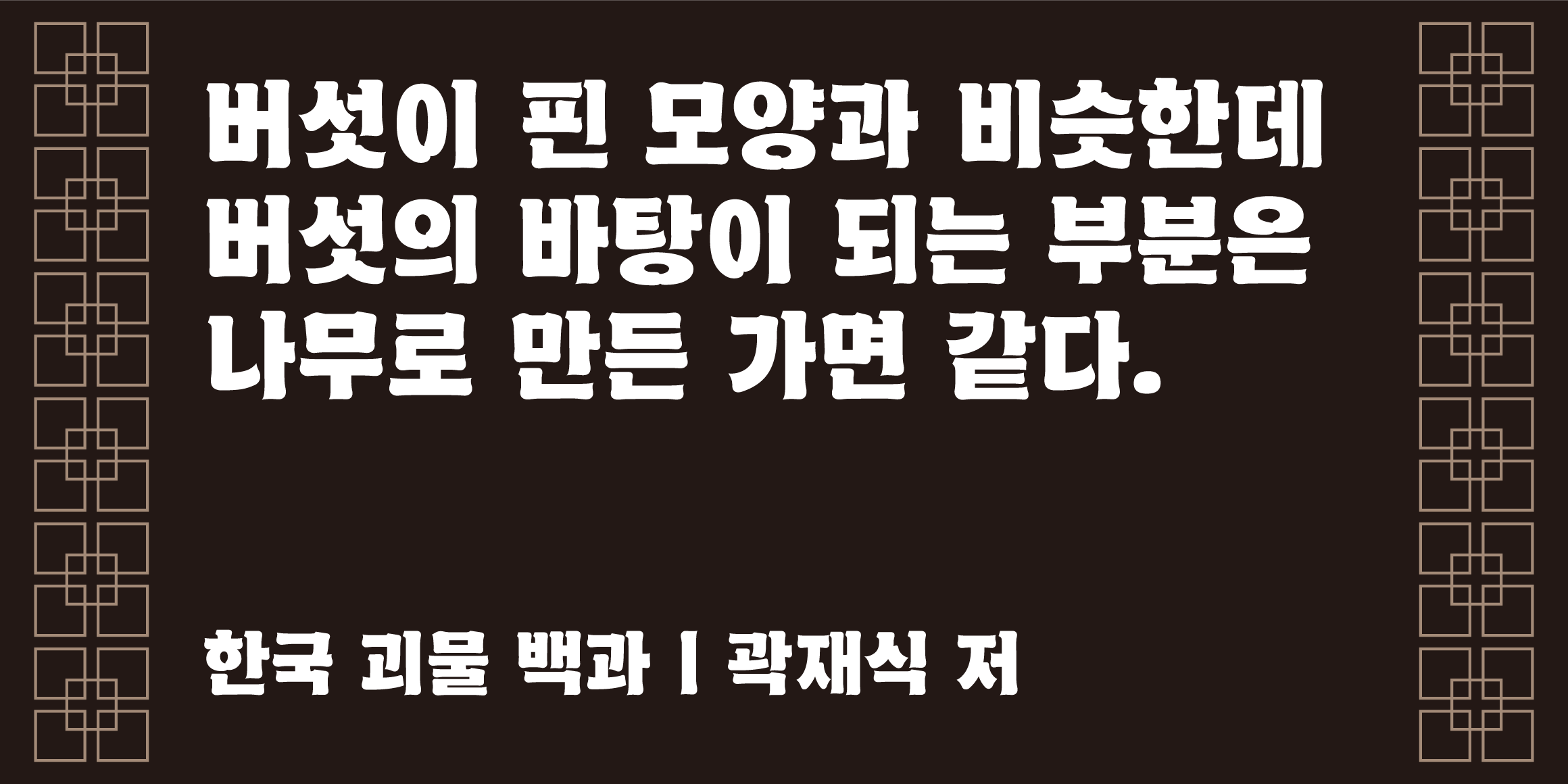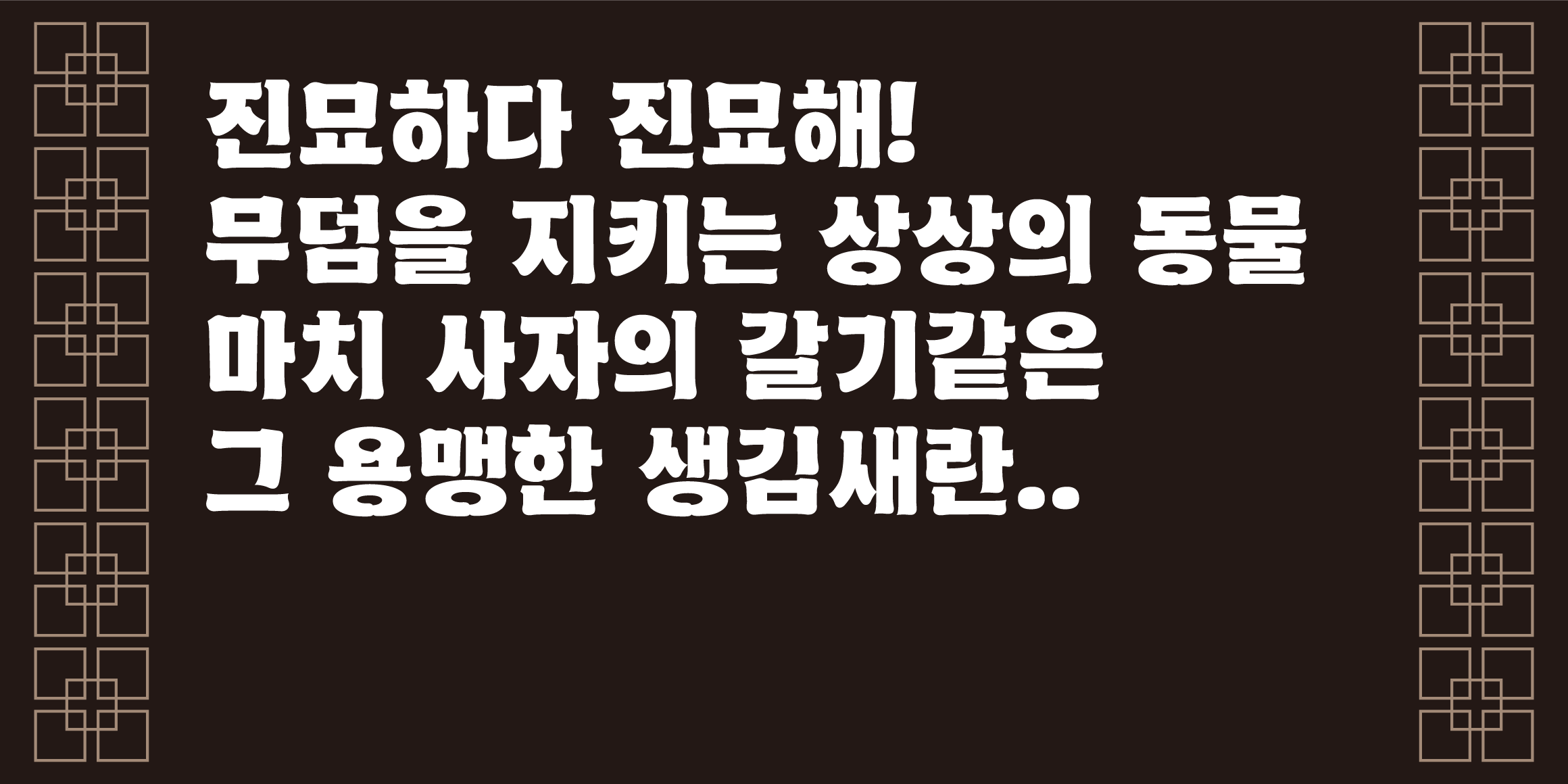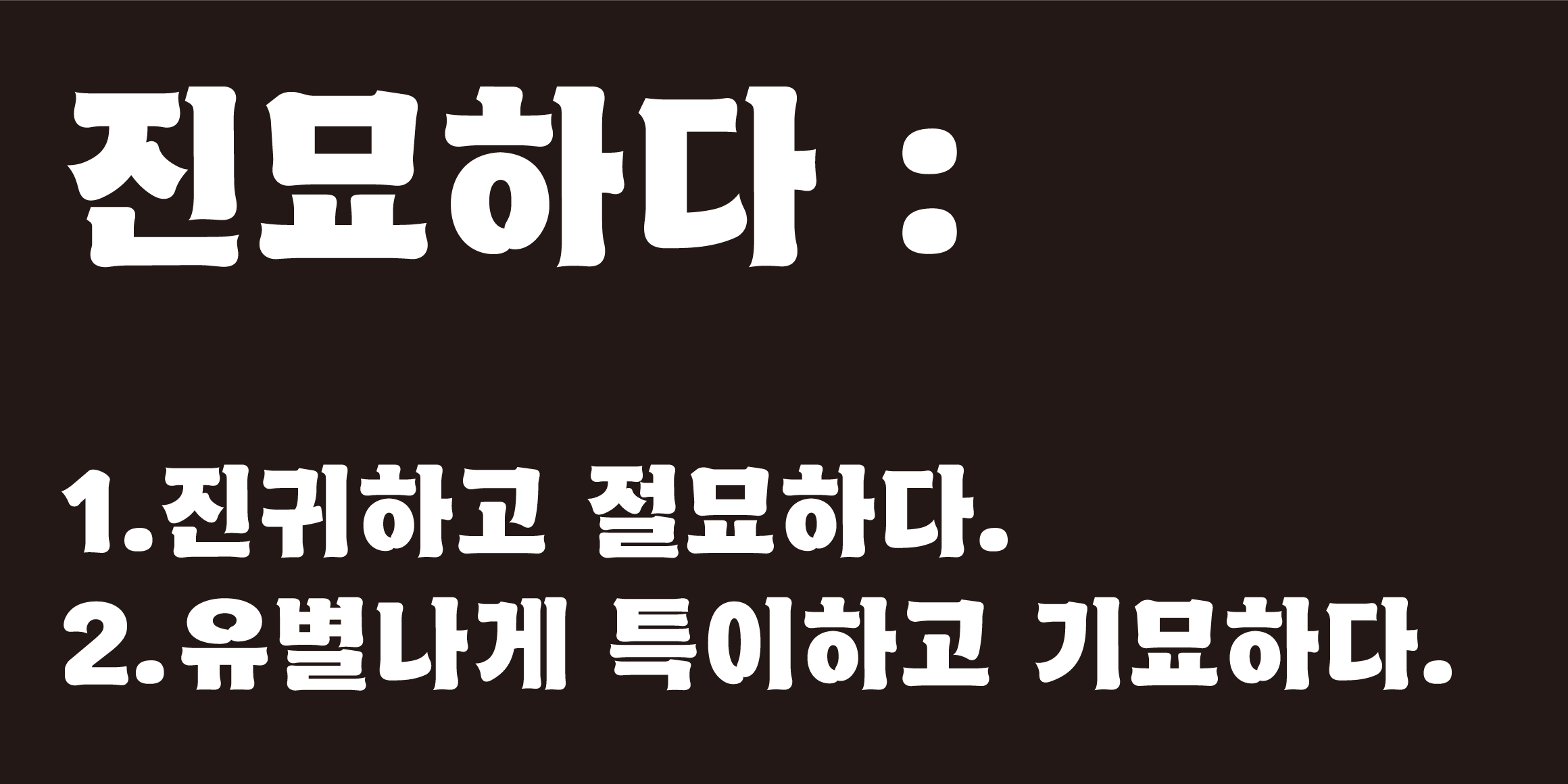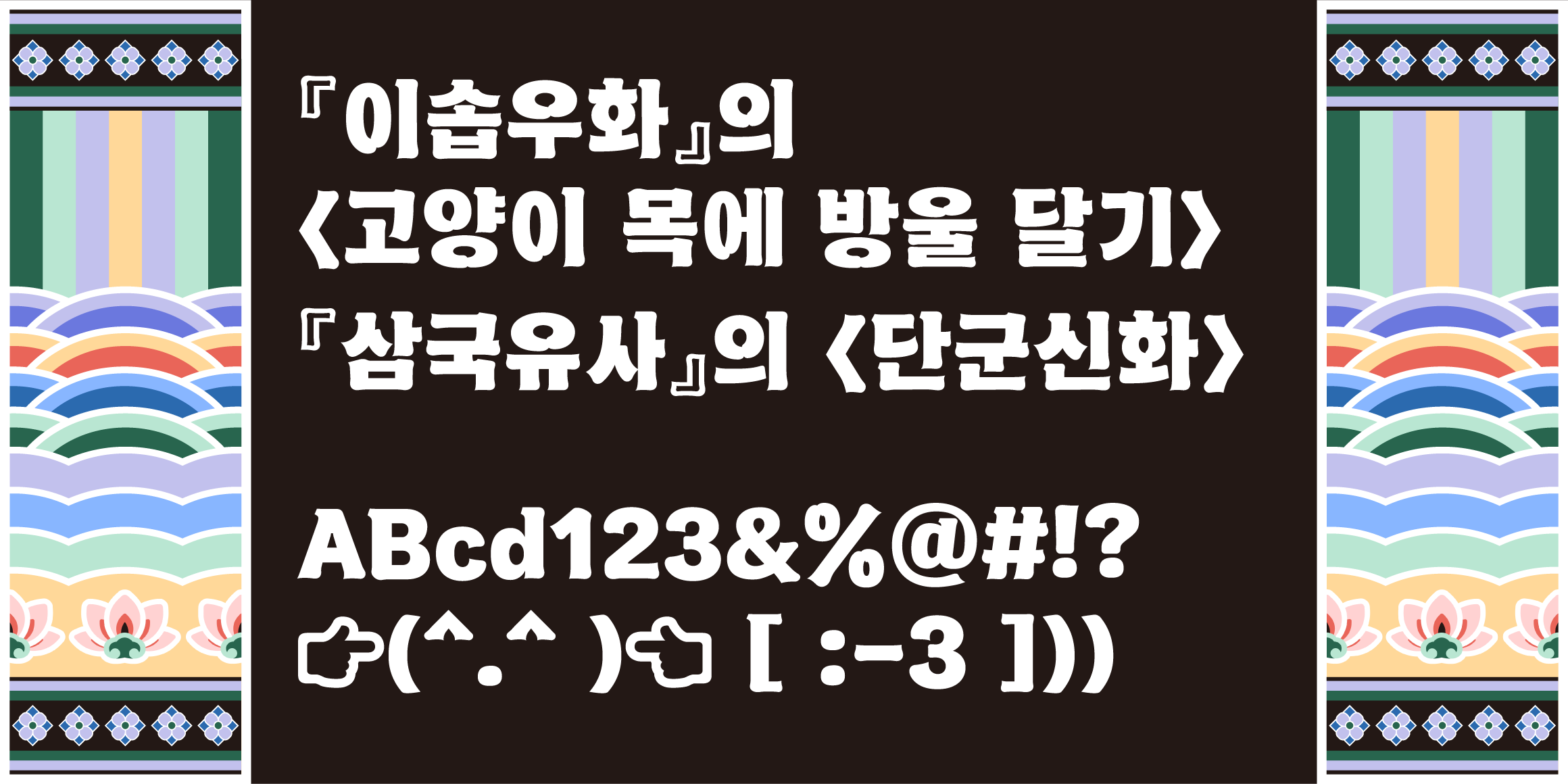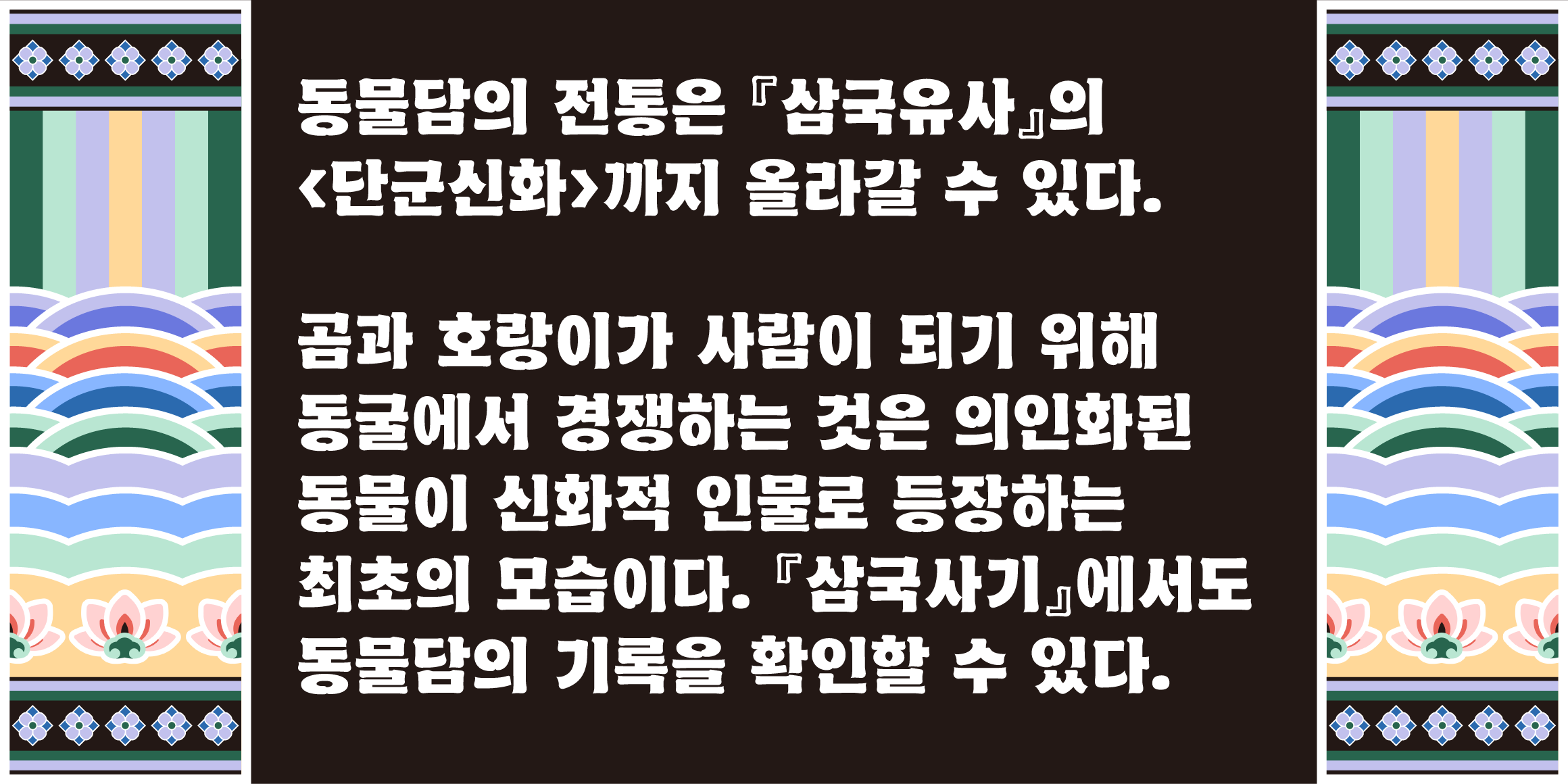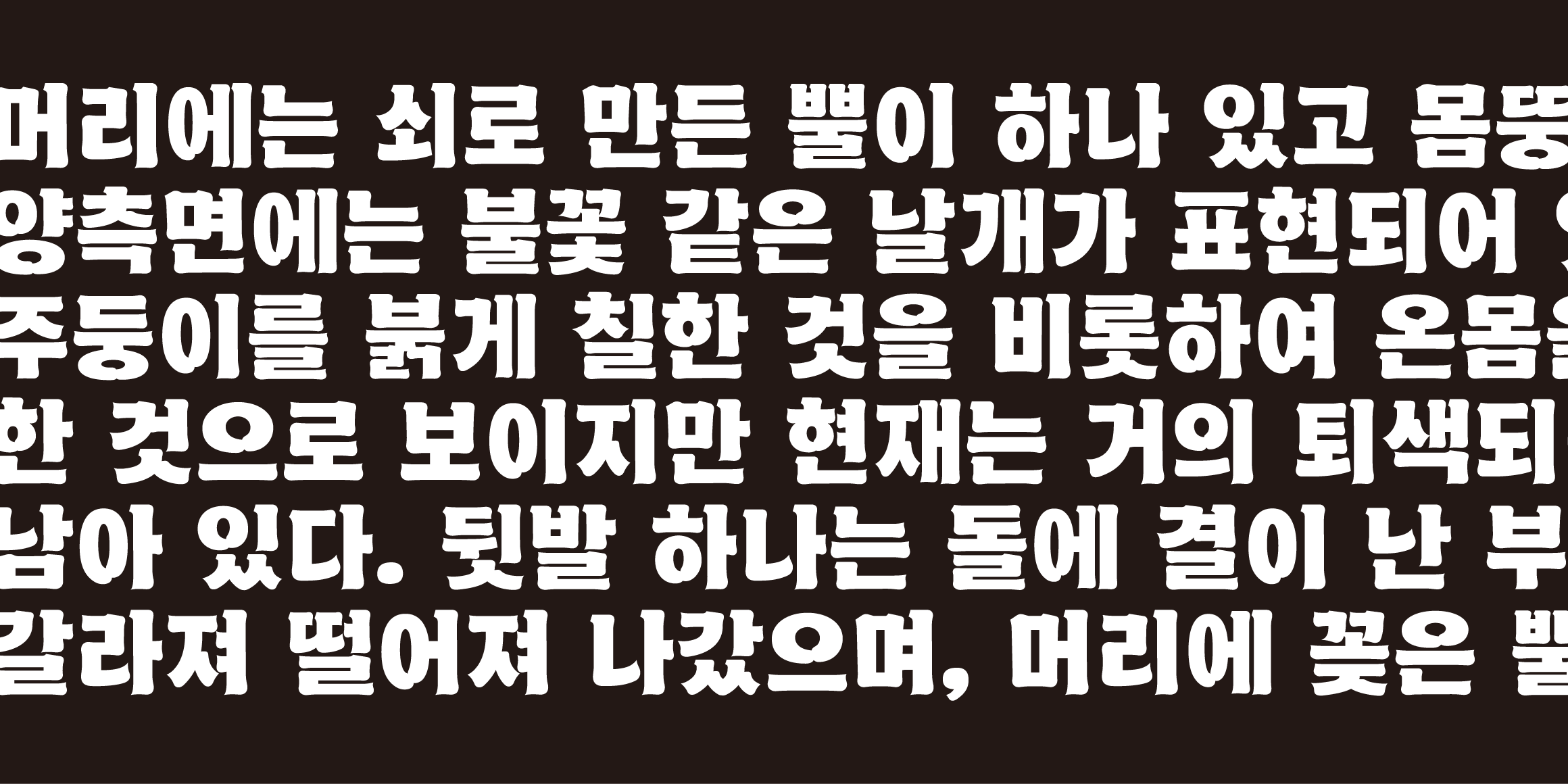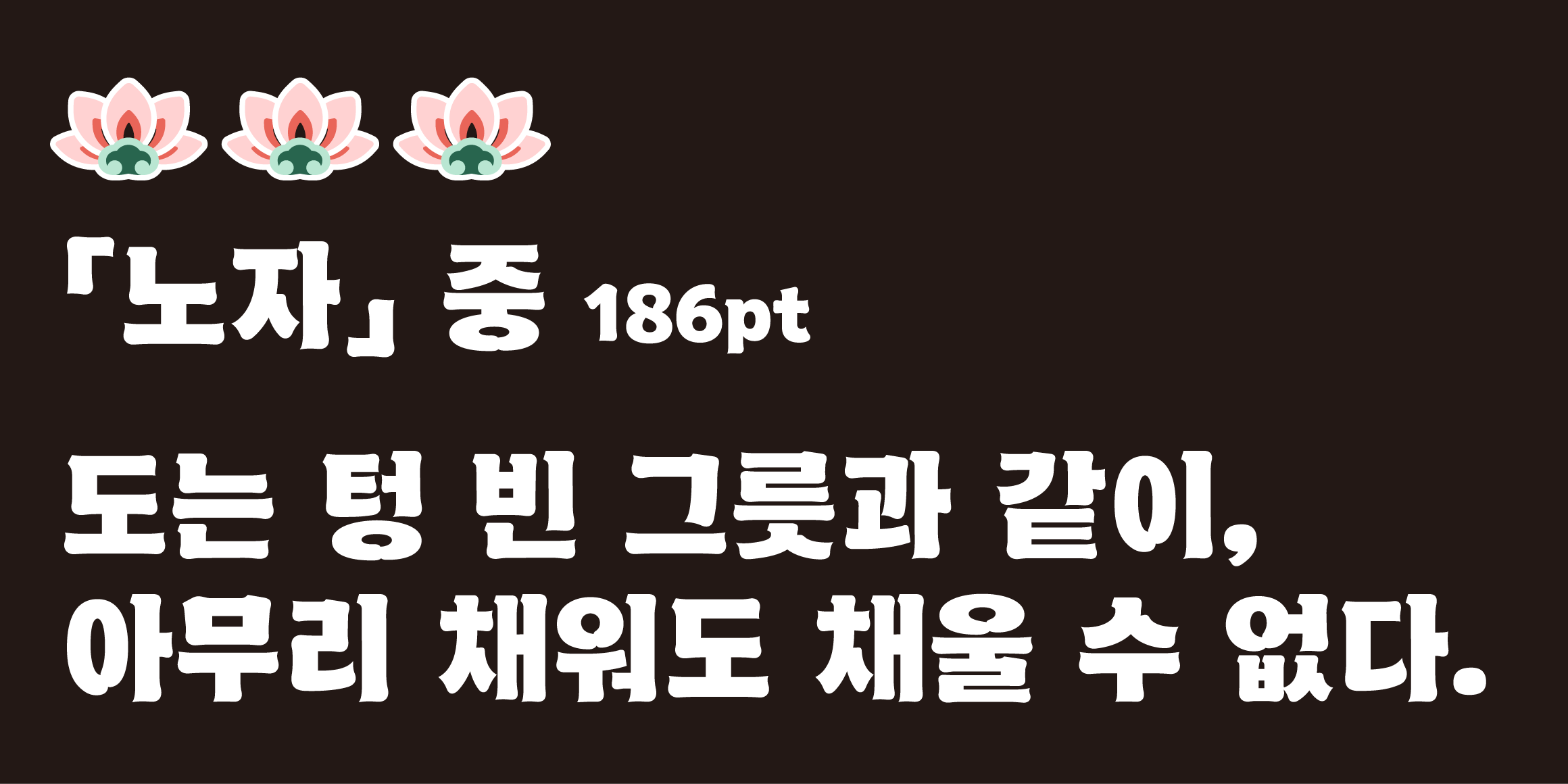
Tium JinMyo
"Tium Jinmyo" is a display typeface inspired by Jinmyosu, a mythical guardian statue from the Royal Tomb of King Muryeong. It features bold, sharply curved beaks and dynamic terminals that mimic a majestic, flowing mane.
It combines rugged, wind-swept strokes and traditional calligraphy textures with natural ink-pooling effects. This blend delivers a powerful, handcrafted Korean aesthetic suitable for various design contexts.
• Tium 진묘체 / Tium JinMyo